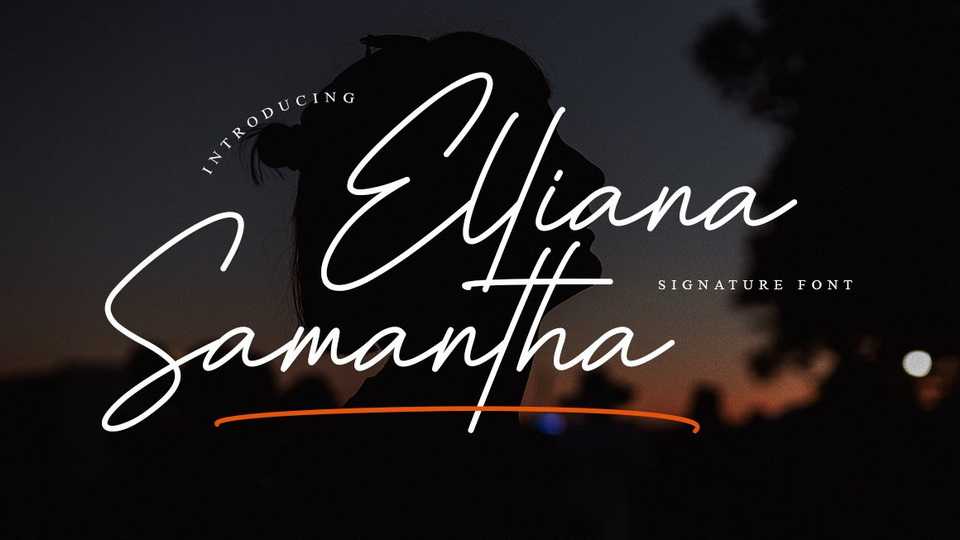
Download Elliana Samantha font, a stunning signature font with a cool twist. Elliana Samantha font is suitable for use on business cards, weddings, t-shirt designs, logos, magazines, quotes, fashion, watermarks, invitations, signatures.